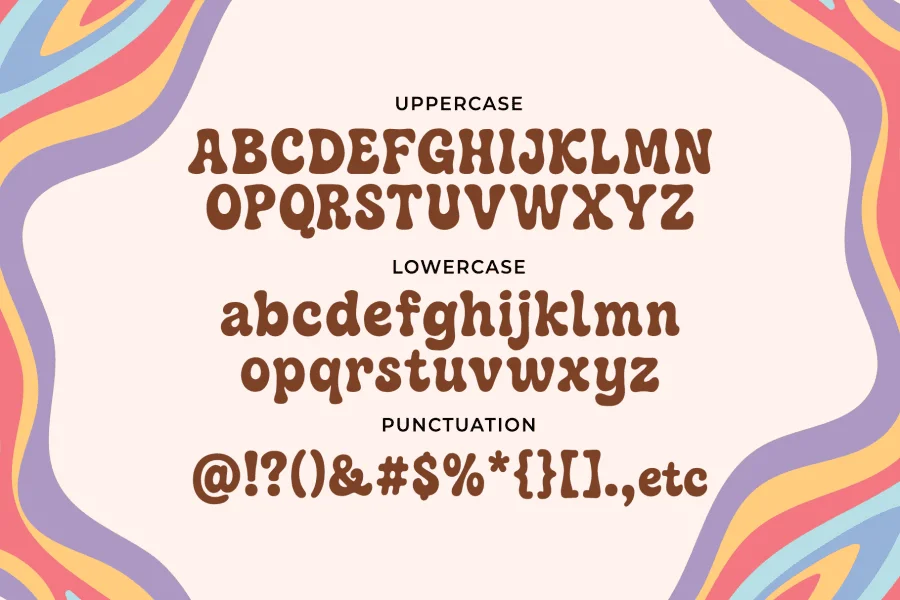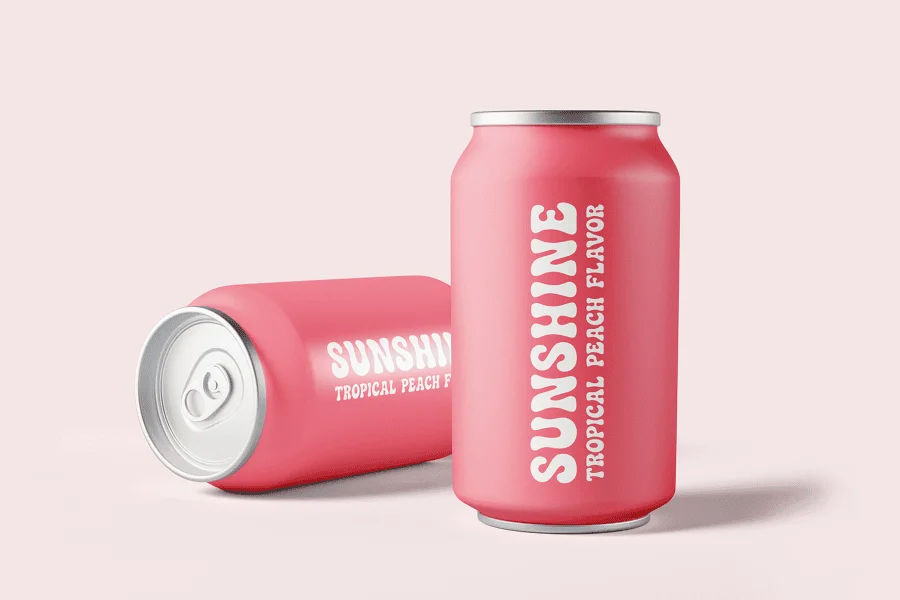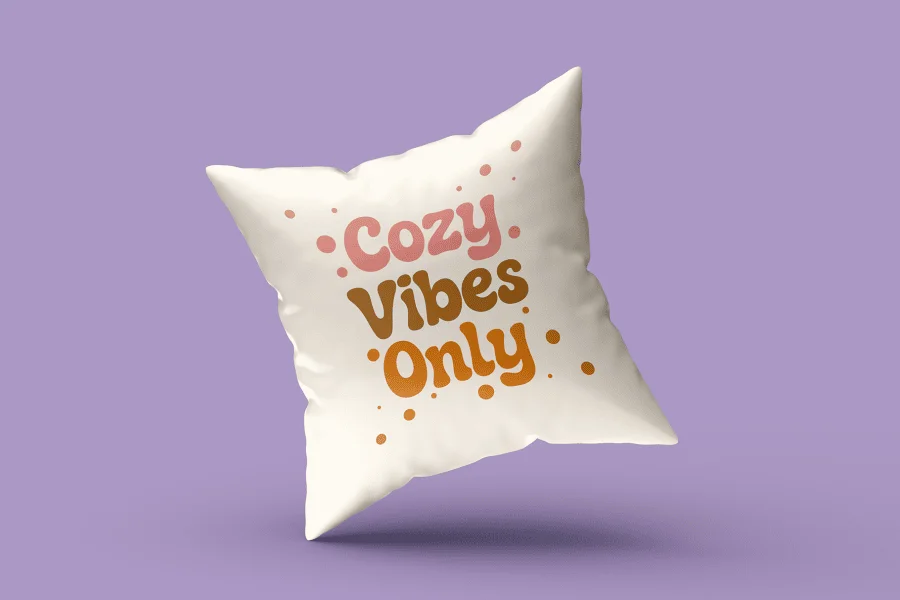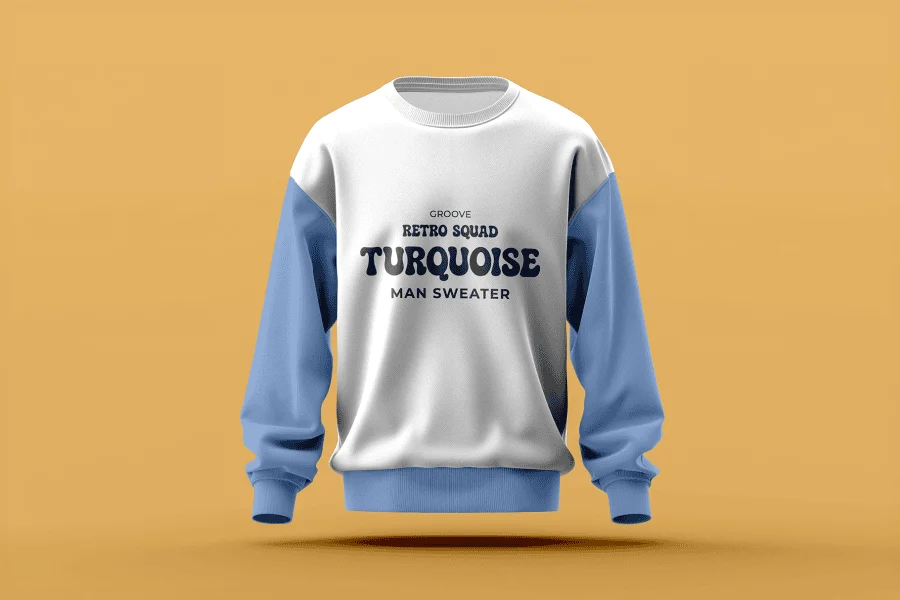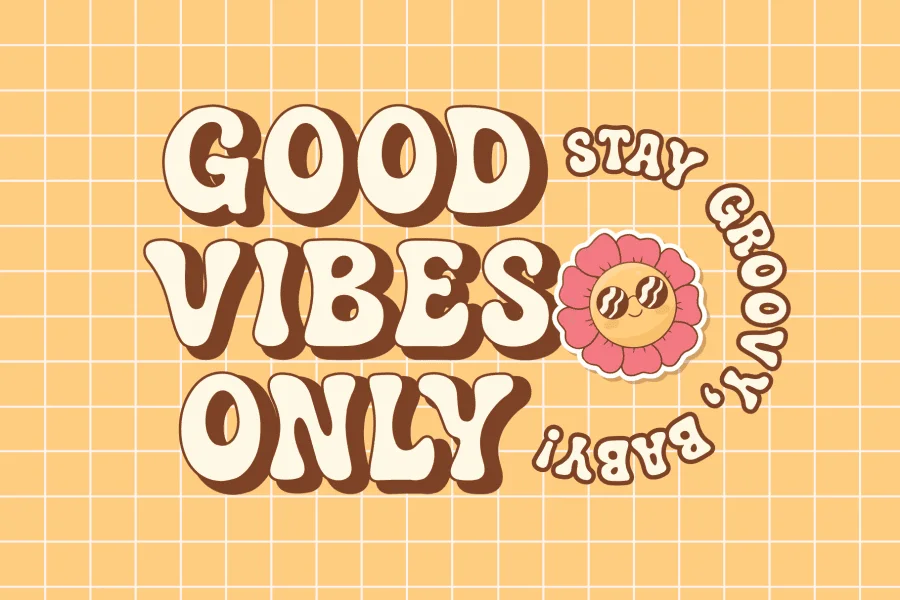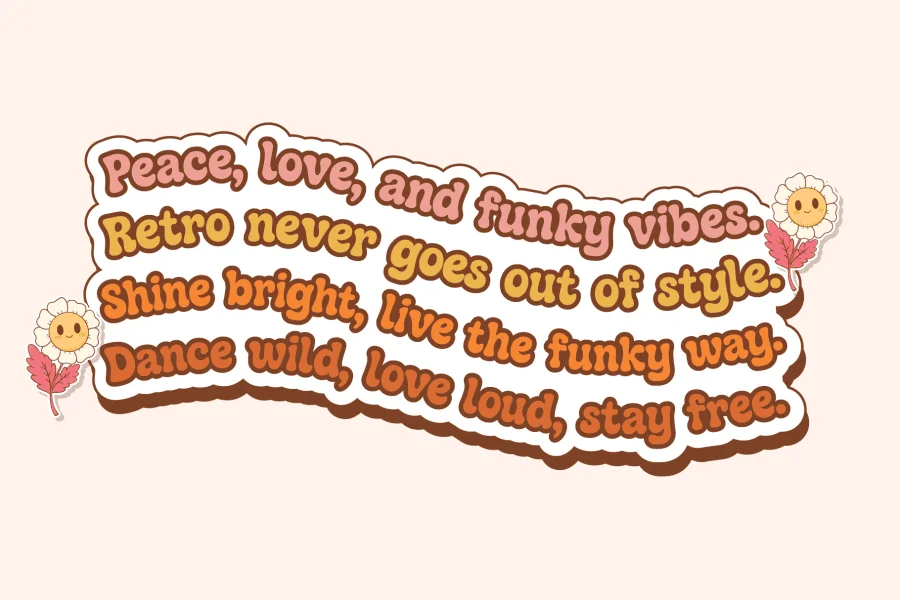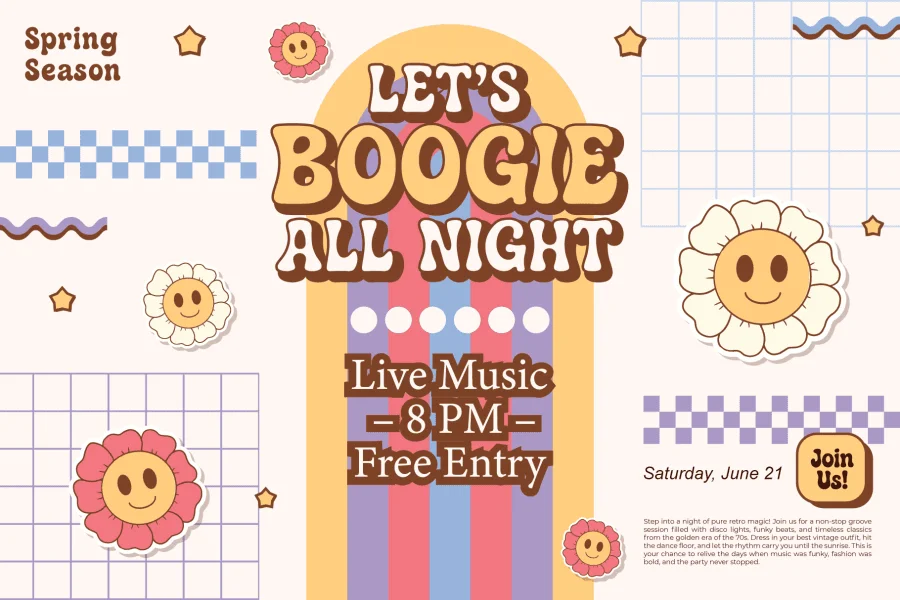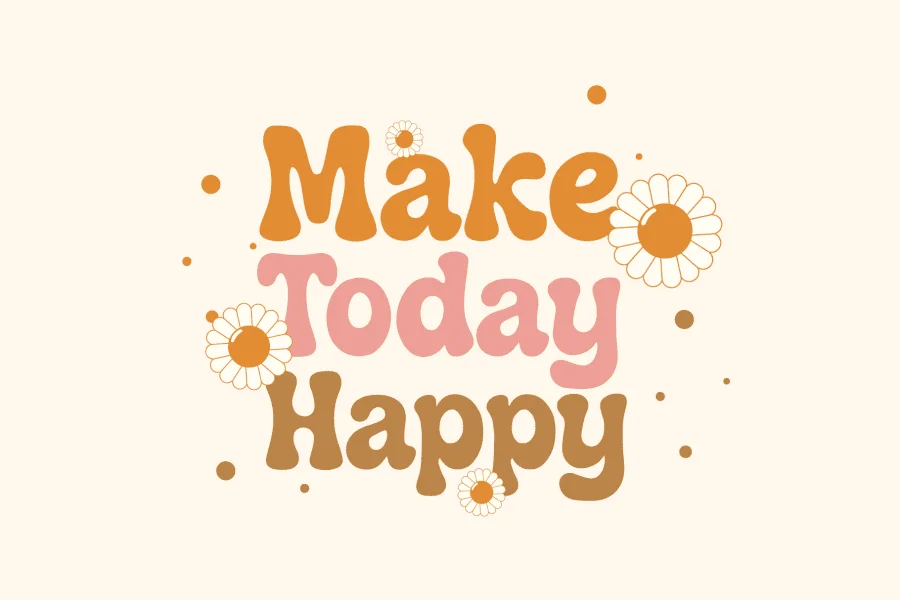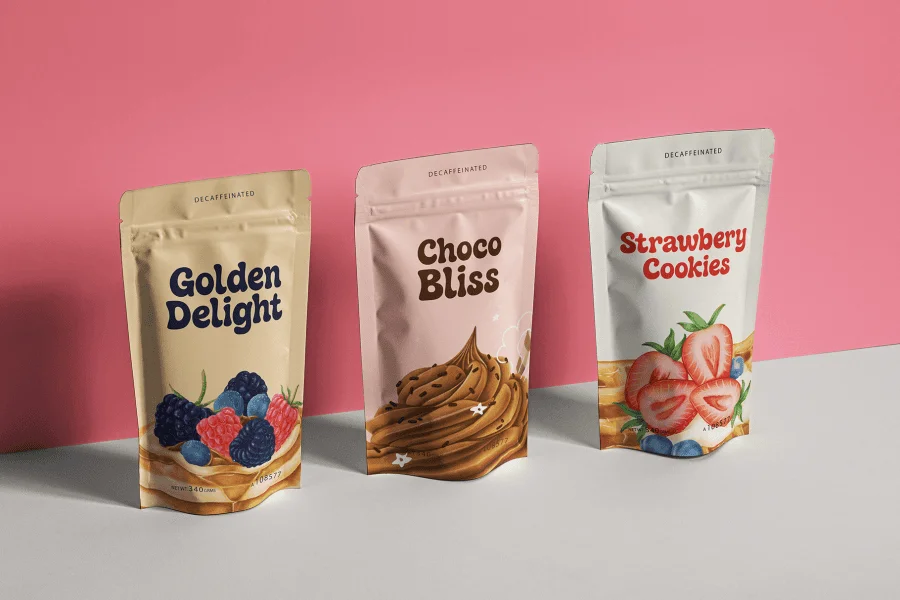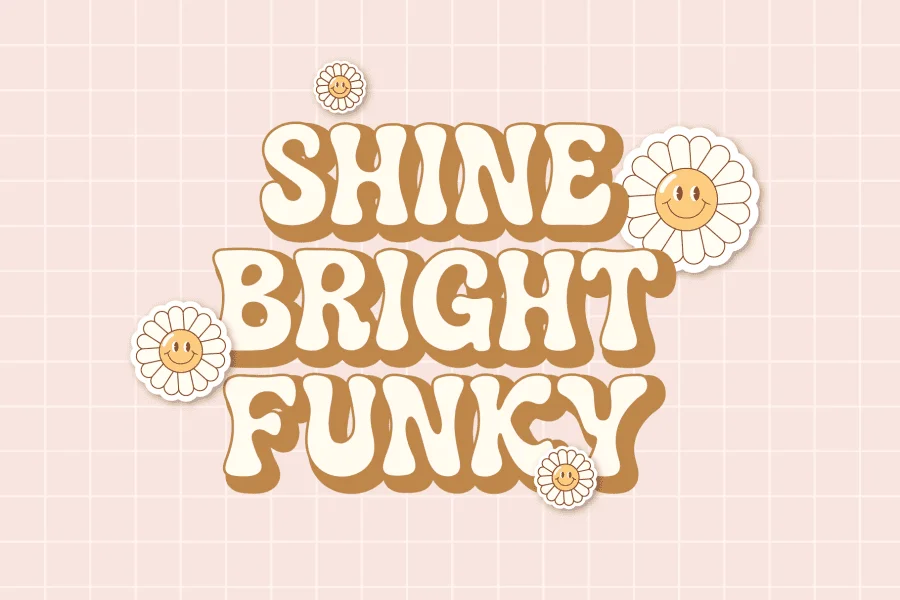
Bobogie Groovy – Retro Groovy Display Font
Step into a world of vibrant colors, swirling shapes, and funky vibes with Bobogie Groovy – a bold retro display font inspired by the golden age of the ’60s and ’70s. This typeface dances with personality, blending chunky curves, playful letterforms, and a joyful rhythm that will make any design sing.